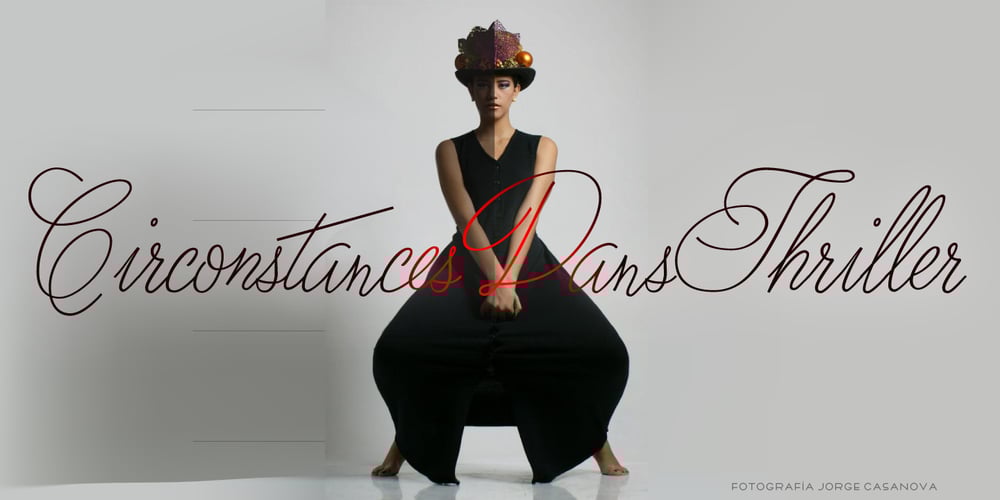
Scripta Pro Font Family was designed by John Moore and published by John Moore Type Foundry. Scripta Pro contains 5 styles and family package options. Scripta is a family of typefaces that leads “Scripta Pro”, a commercial script writing similar to those used in ads advertising the decades 40 and 50, with fine lettering combinations of that time, Scripta Pro is ideal for composing headlines and subheads and this is supplied in two weights. This system is complemented by a Roman Sans “Scripta Gothic” an artdeco style typeface to harmonize with the style of that fonts. To add style to set fonts, created “Scripta Icons”, one dingbats font based on a series of graphs that help recreate the ornamental fantasies of a postwar generation, a society in transition between the classical world and ornament and promises of a cosmic and atomic world. For those wishing to use words made was created “Scripta Catchwords”. “Scripta Pro” is a script typeface inspired by the style works of the american typeface designer LH Copeland.